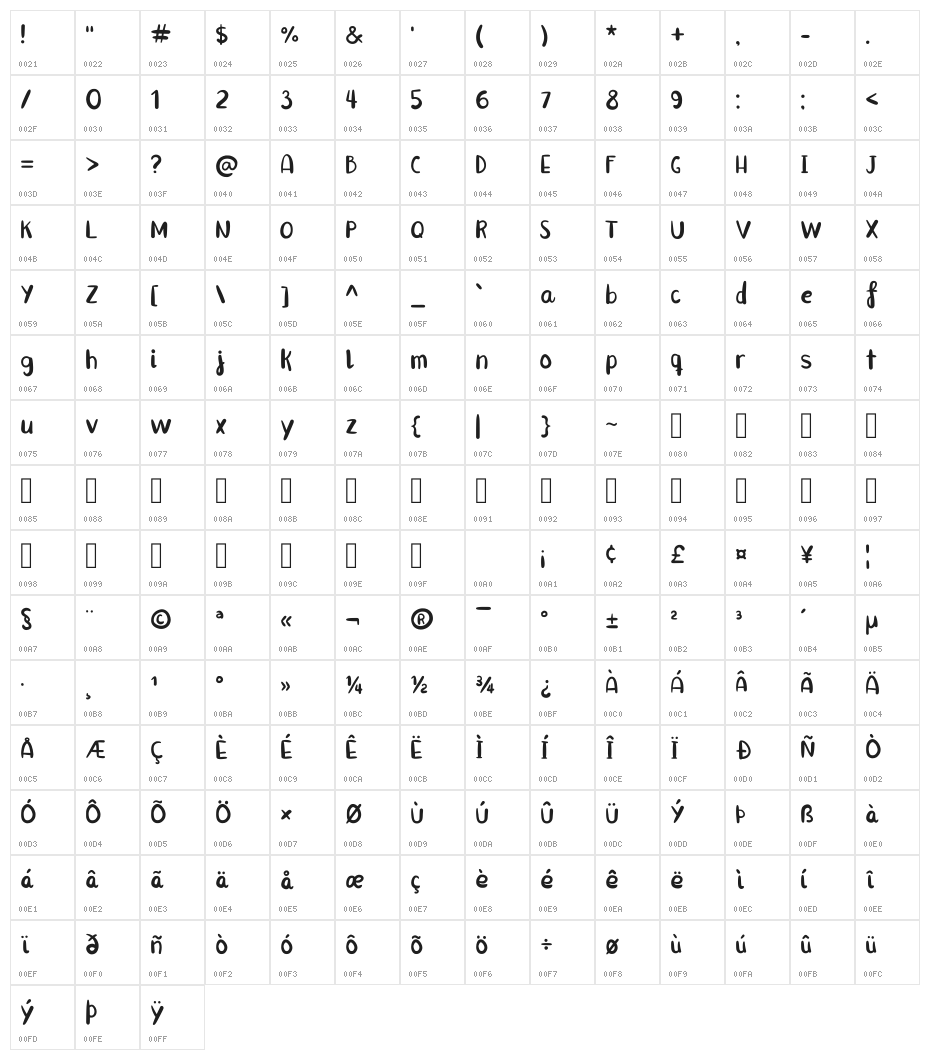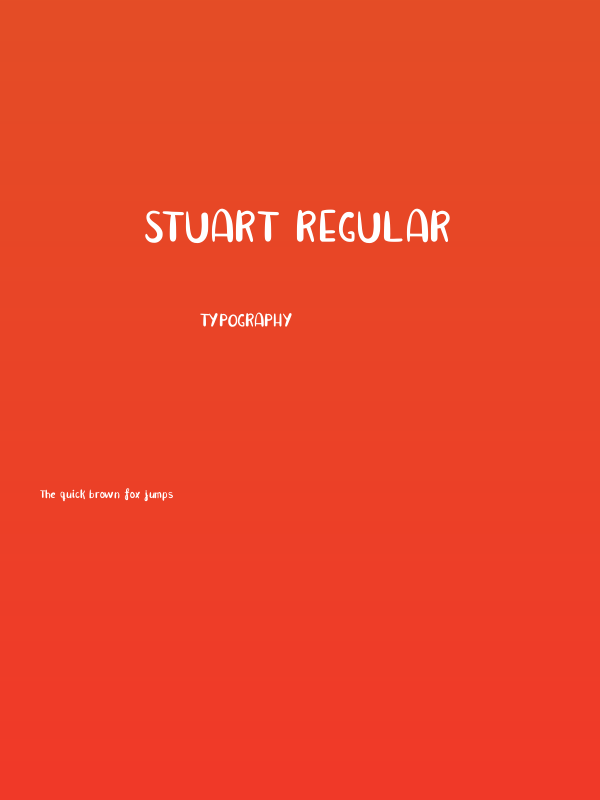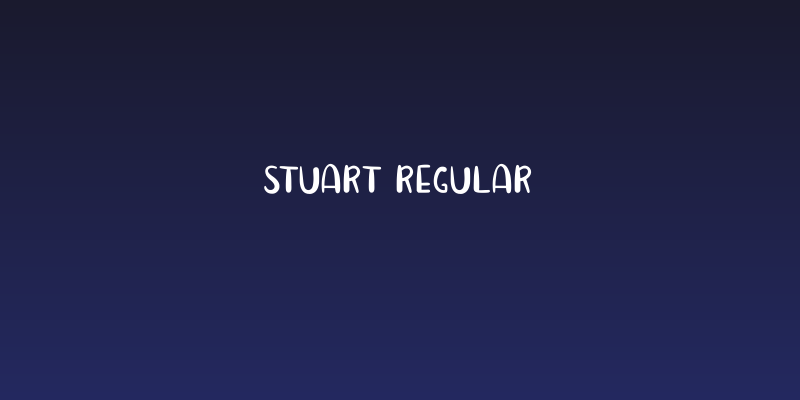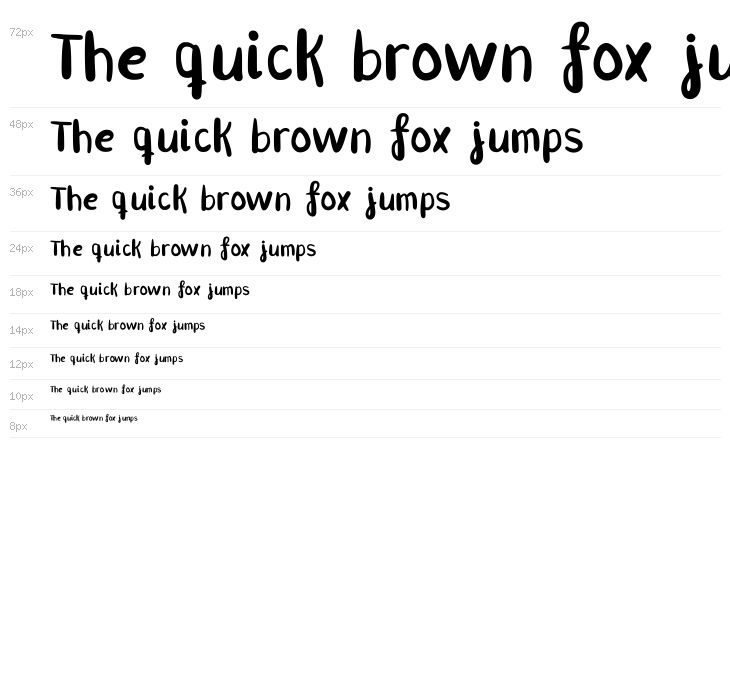
Stuart Regular Font
Stuart Regular Description
This font features a playful and casual handwritten style, characterized by its rounded and slightly irregular letterforms. The uppercase letters are bold and prominent, while the lowercase letters maintain a consistent flow with a friendly appearance. The numerals are clear and easy to read, complementing the overall informal aesthetic. Special characters are well-integrated, enhancing the font's versatility. Its design is approachable and modern, making it suitable for a variety of creative applications.
| Overall Style | Casual, Playful |
| Use Case | Headlines, Logos, Informal Text |
| Proposed Projects | Ideal for children's books, greeting cards, playful branding, and social media graphics. |